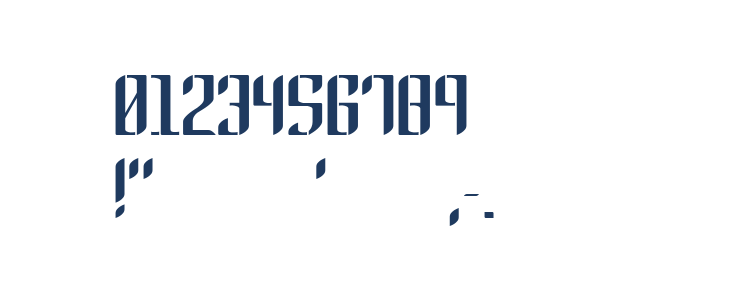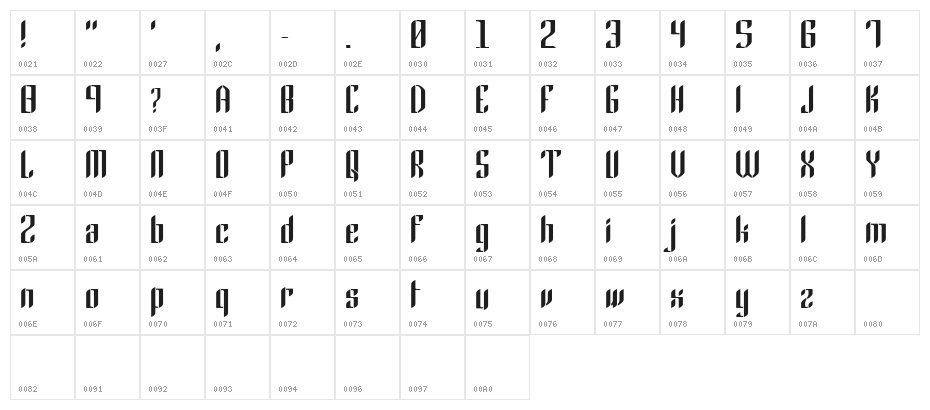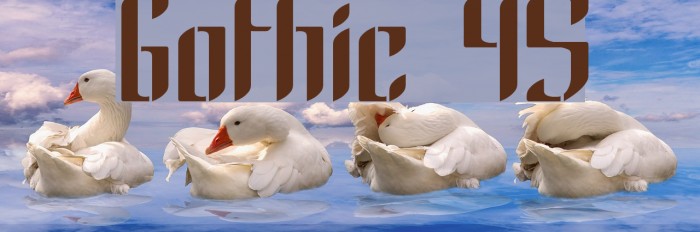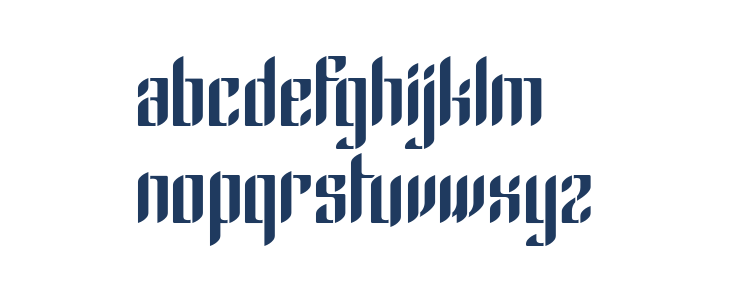
Gothic 45 Font
Gothic 45 Description
This font exhibits a bold and striking Gothic style, characterized by its sharp, angular lines and high contrast between thick and thin strokes. The uppercase letters are particularly tall and narrow, giving a dramatic and imposing appearance. The lowercase letters maintain a consistent style, with distinctive pointed edges and a strong vertical emphasis. Numbers and special characters follow the same aesthetic, ensuring a cohesive look across all characters. This font's unique design is reminiscent of traditional blackletter typefaces, yet it incorporates modern elements that make it suitable for contemporary use.
| Proposed Projects | Ideal for projects requiring a dramatic and impactful look, such as posters, album covers, branding for edgy or alternative products, and event invitations. |